Script fonts
Script fonts are based on handwriting, and as such they have more variation and fluidity than typeset fonts. They can be casual or formal.
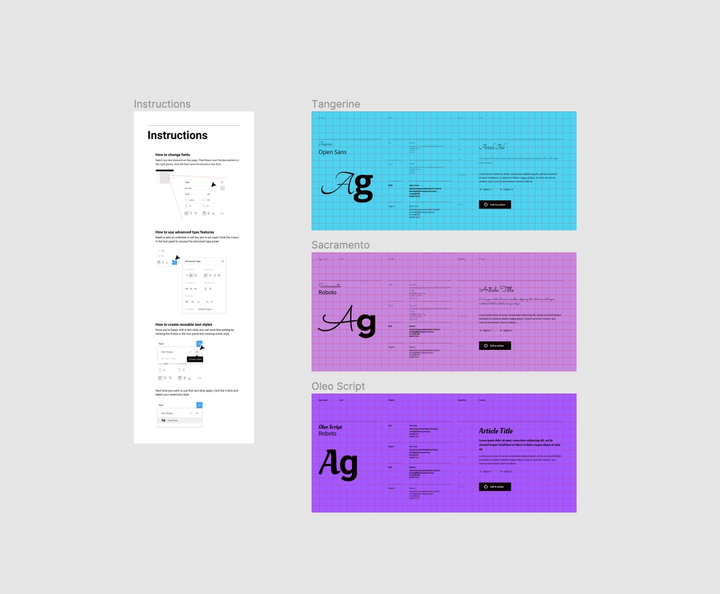
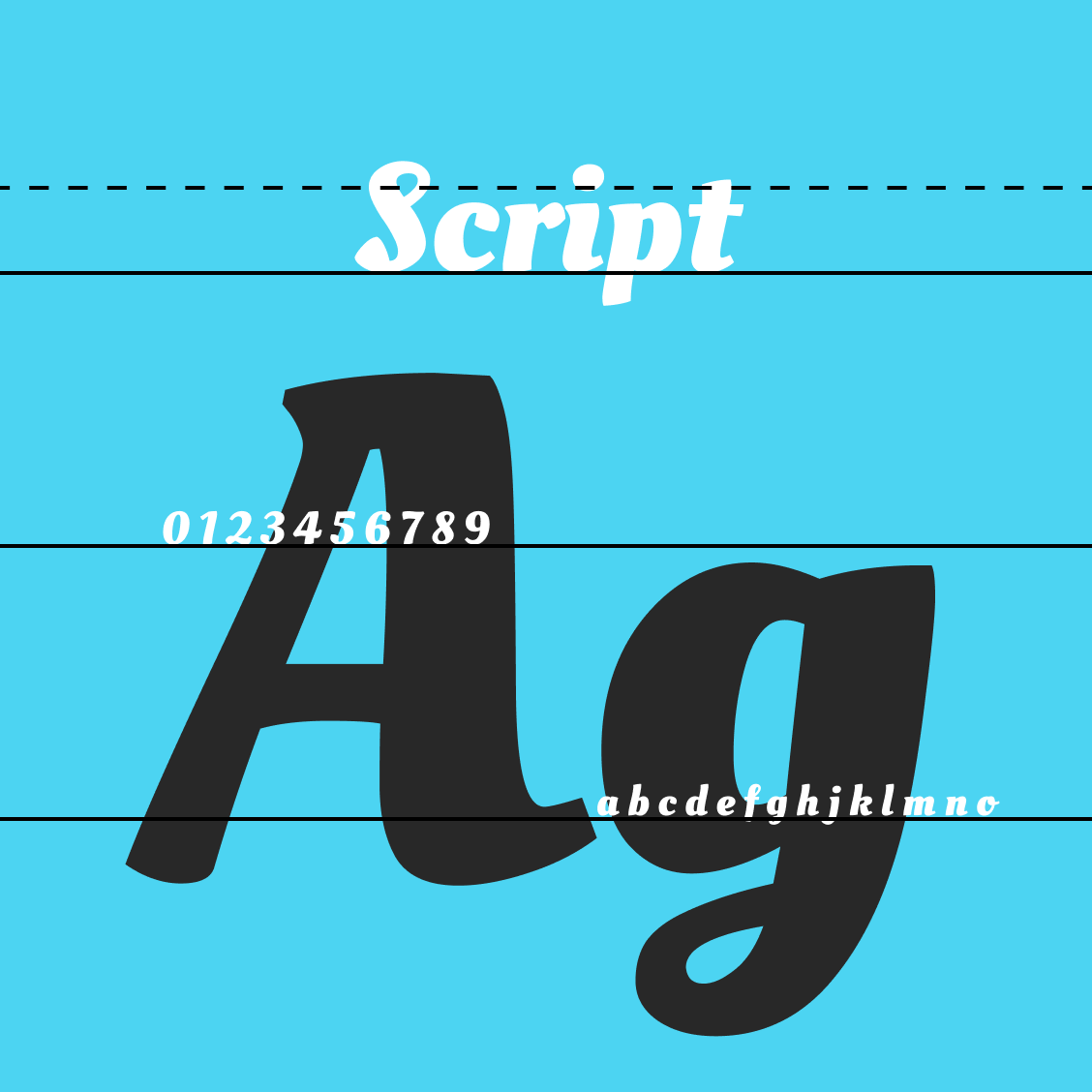
Tangerine font pairing
Tangerine is a calligraphic typeface inspired by italic chancery hands from the 16th and 17th centuries.
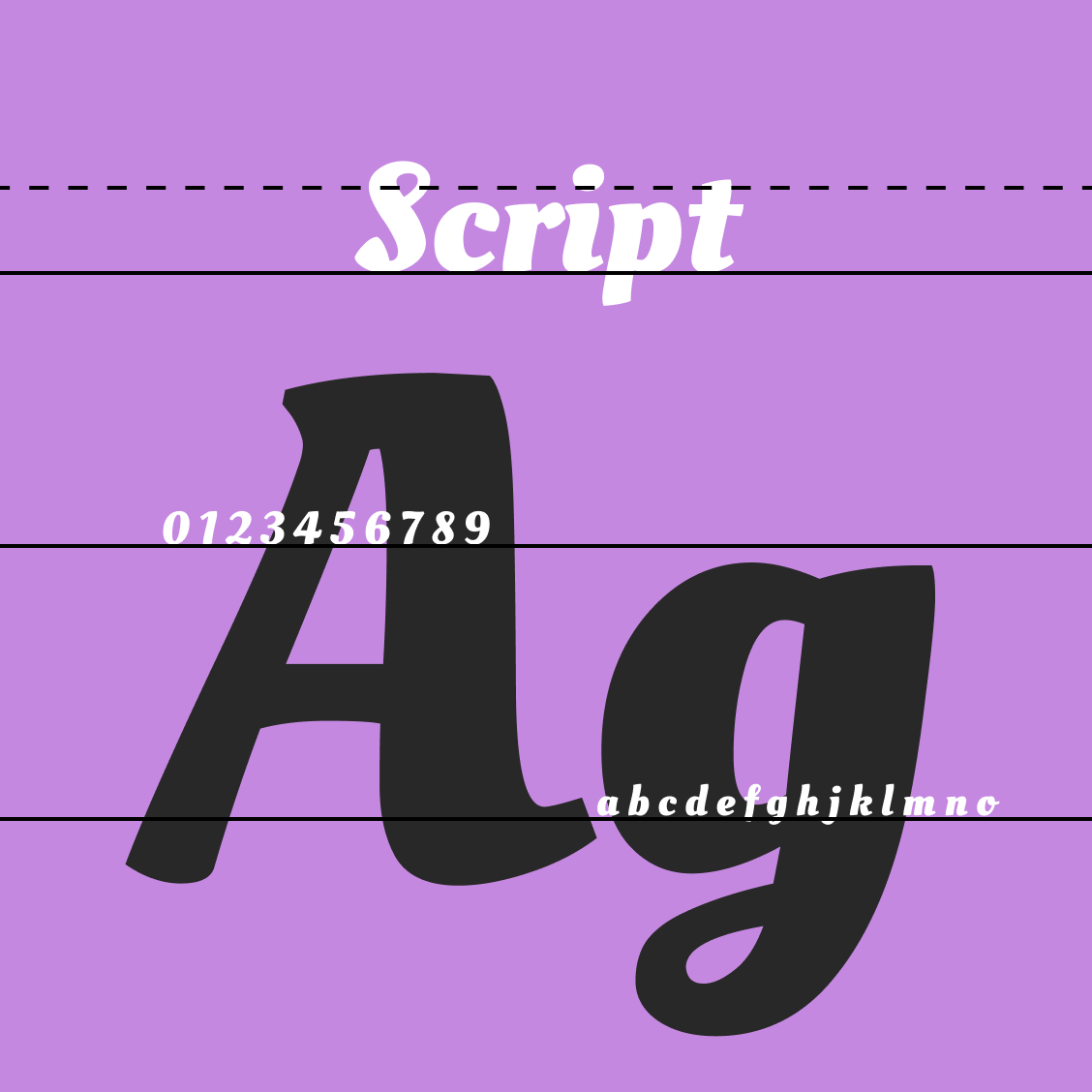
Sacramento Script font pairing
The Sacramento typeface is monoline script inspired by hand lettering work in brochures from the 50s and 60s
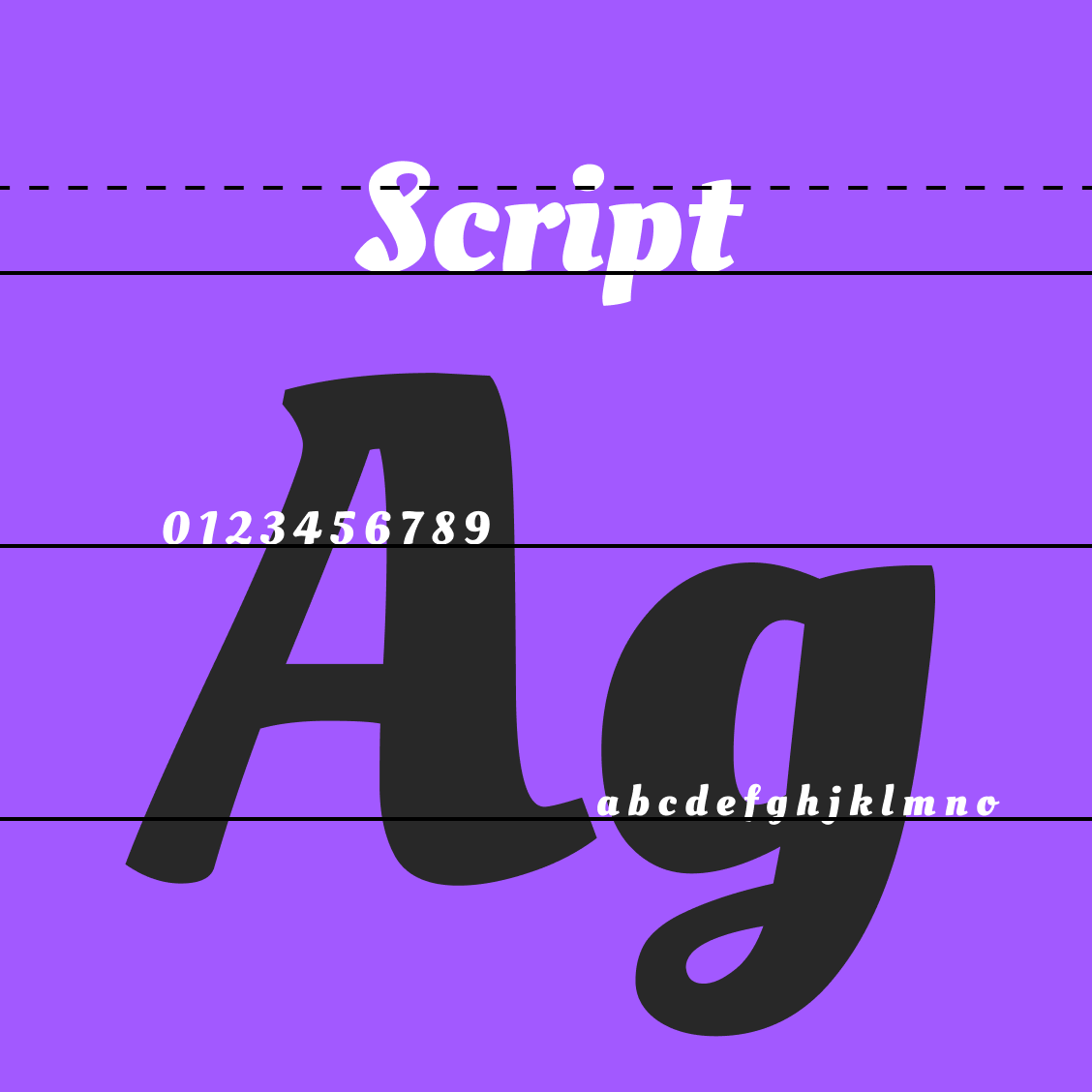
Oleo Script font pairing
Oleo is a flowly script typeface perfect for a casual lettering effect, suitable for headlines and packaging.
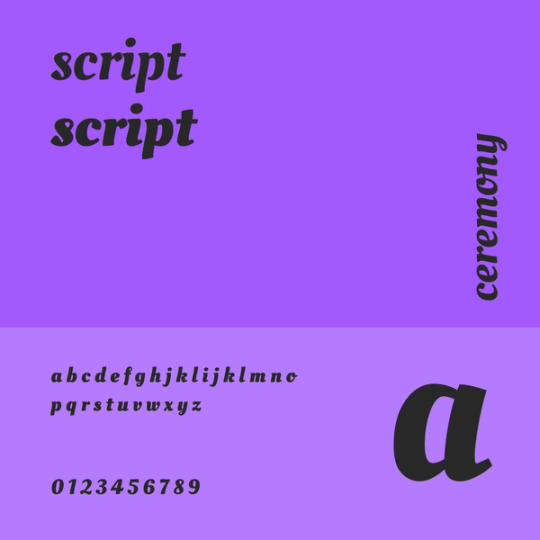
About script fonts
Most formal script fonts are based on letterforms from 17th and 18th century writing masters. It can be very technologically challenging to get script fonts to join up and look like real handwriting.
When to use script fonts
Script fonts can be difficult to read if they are too small or if they’re crammed together in wall-to-wall text blocks. They are ideally suited for ceremonial documents like diplomas or invitations.
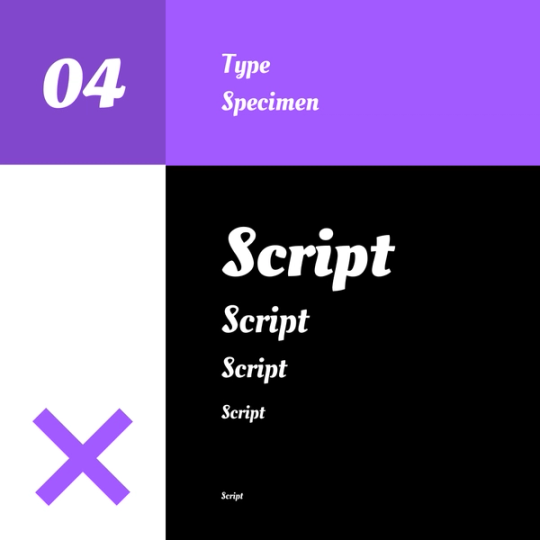
Free script fonts
Even free script fonts have lots of variation: Lobster is blocky and bold, Pacifico is loopy and rounded, and Tangerine is more typically classic and elegant. Choose the script that fits you best!
Wedding script fonts
It’s probable that the wedding industry is the single biggest user of script fonts. Save the date cards, invitations, menus, place cards, and even titles on wedding websites often use script fonts.